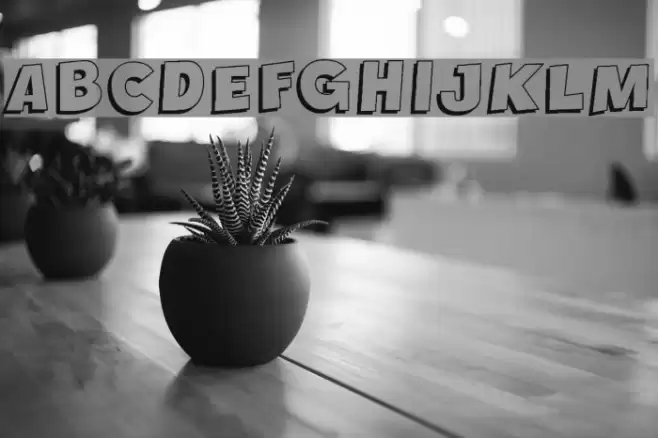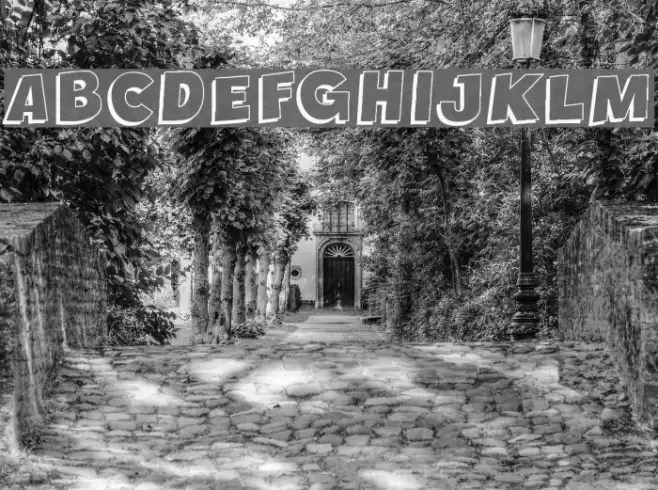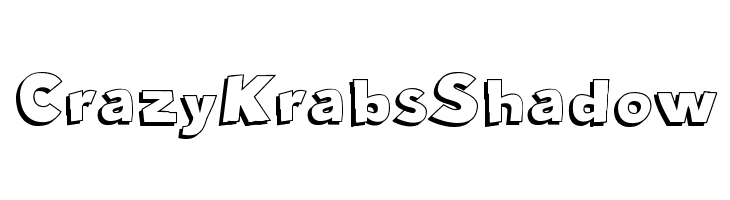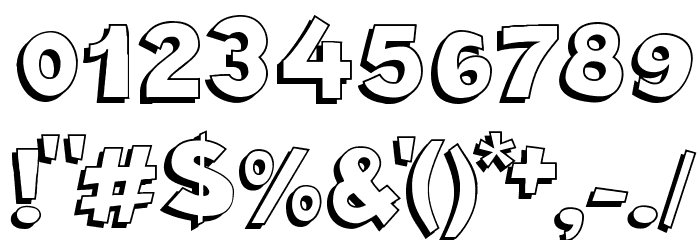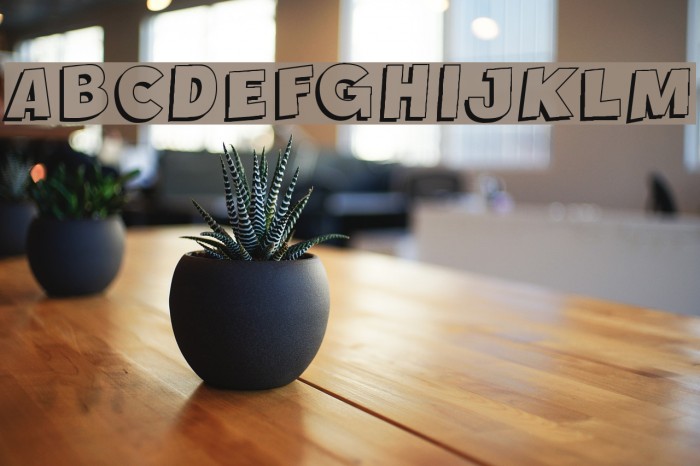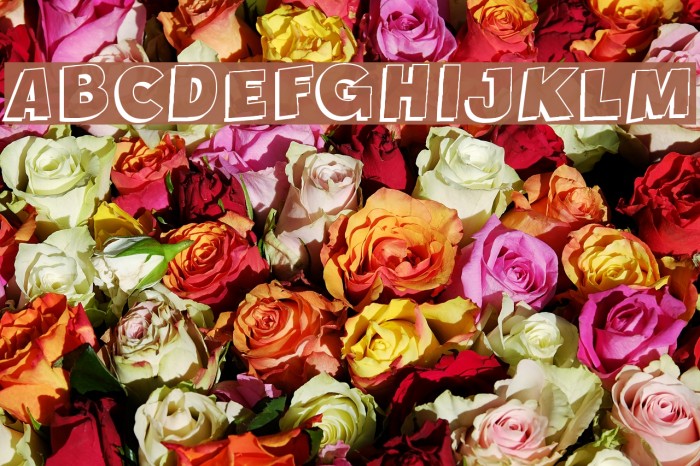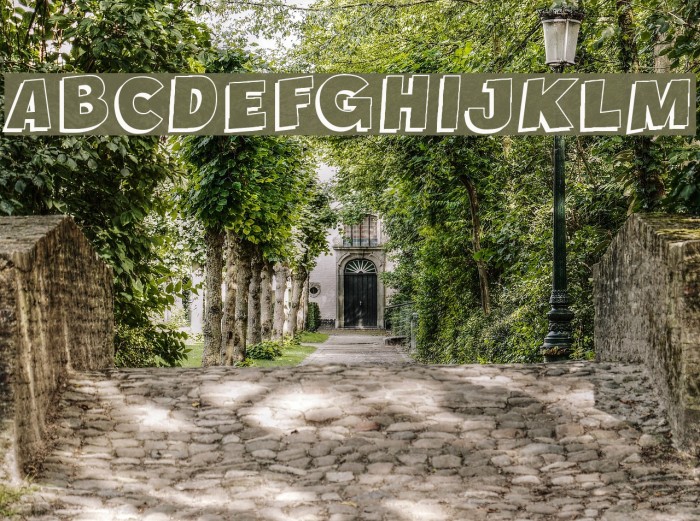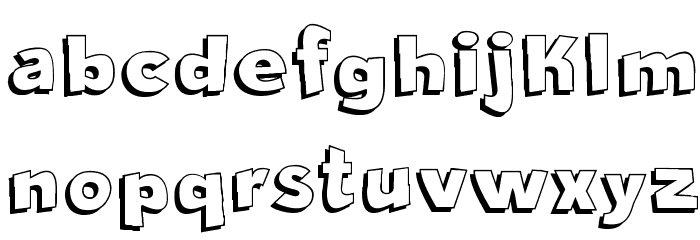
Crazy Krabs Shadow Font
Crazy Krabs Shadow Description
This playful and bold font features a unique shadow effect that gives it a three-dimensional appearance. Each character is outlined with a thick black line, enhancing its visibility and making it stand out. The letters are slightly tilted, adding a dynamic and whimsical feel. The font maintains consistent thickness across all characters, providing a uniform look. Its cartoonish style is perfect for projects that require a fun and engaging aesthetic. The numbers and special characters follow the same design principles, ensuring coherence throughout any text.
A bold, playful font with a shadow effect and cartoonish style from Uncategorized fonts.
- Proposed Projects: Ideal for children's books, comic strips, playful branding, and event posters.
- Overall Style: Playful, Cartoonish